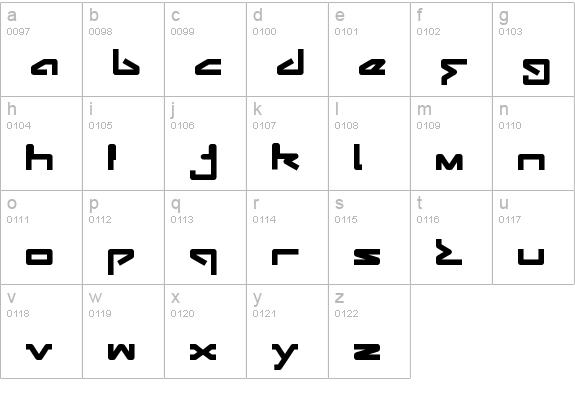
Introducing the captivating ANDROID ROBOT font, a dynamic and modern typeface that brings a futuristic touch to any design project. With its sleek lines and sharp edges, this font encapsulates the essence of advanced technology and innovation. Designed with precision and attention to detail, ANDROID ROBOT font is the perfect choice for those seeking a font that exudes professionalism and sophistication. Its clean and minimalist design makes it highly versatile, allowing it to be used across a wide range of applications, including branding, advertising, web design, and more. But what makes ANDROID ROBOT font even more appealing is the fact that it is completely free. Yes, you heard that right! This incredible font is freely available to download at FontsMarket.com. Now, you can elevate your design projects without breaking the bank. Whether you're creating a cutting-edge website, a futuristic logo, or a sleek user interface, ANDROID ROBOT font is here to enhance your creative vision. Its seamless legibility and bold presence ensure that your message will be delivered with impact and clarity. So why wait? Take advantage of this incredible opportunity to elevate your designs with the ANDROID ROBOT font. Download it for free at FontsMarket.com and unlock a world of possibilities for your next project. Embrace the future of typography and let ANDROID ROBOT font guide you towards a visually stunning and impactful design.